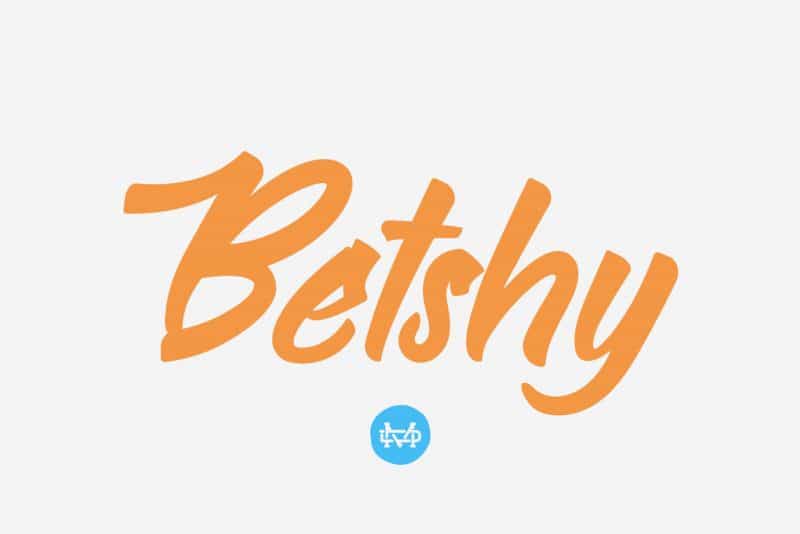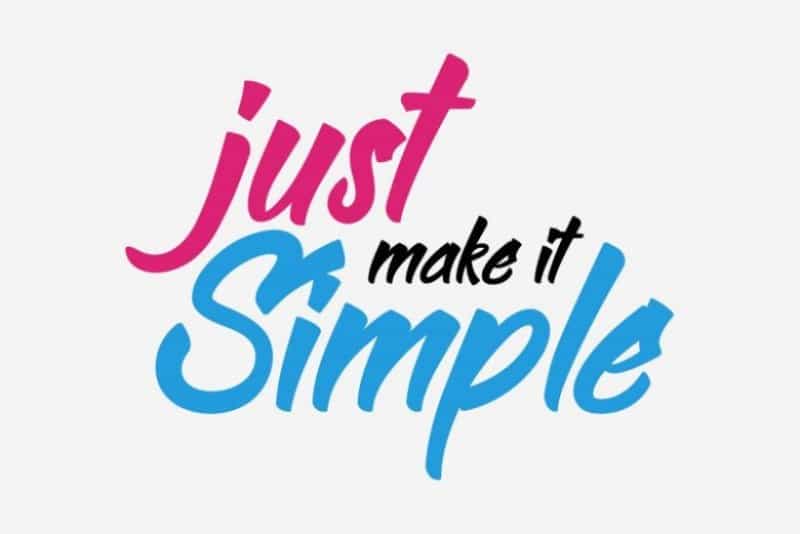
Discover Betshy Brush Font, part of the Brush collection—a versatile and unique font perfect for adding a personal touch to your projects. Download it for free and enjoy crafting designs with style, from invitations to social media posts. This font is available exclusively for personal use, giving you the freedom to create without limits. Unlock your creativity with Betshy Brush Font today!